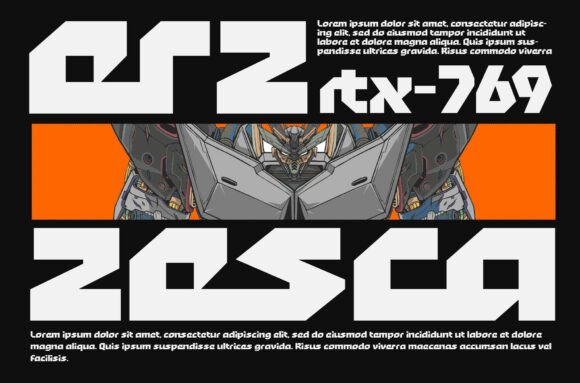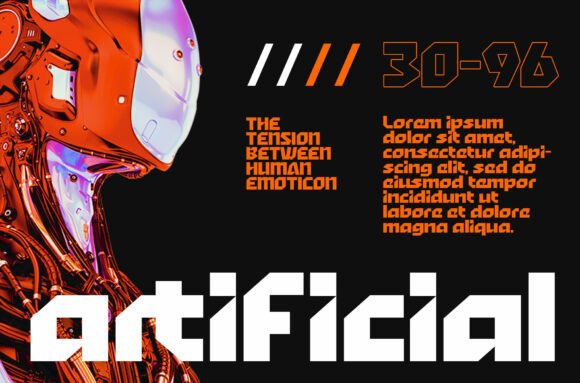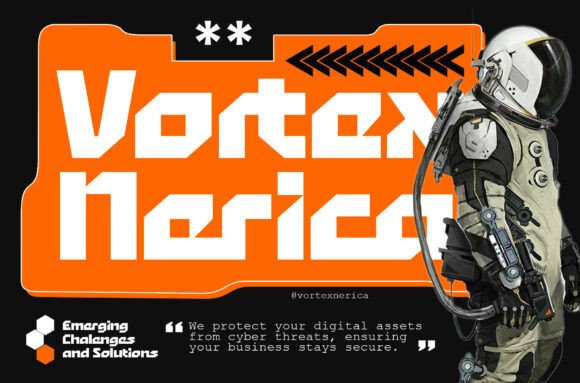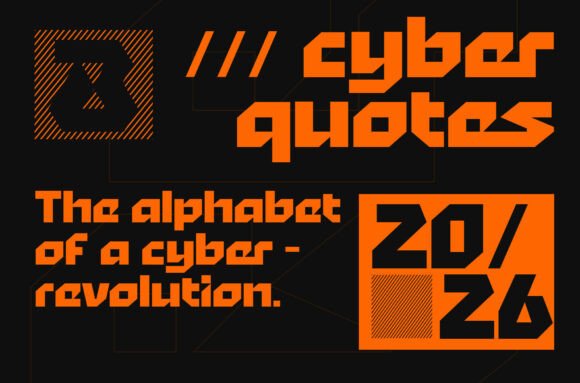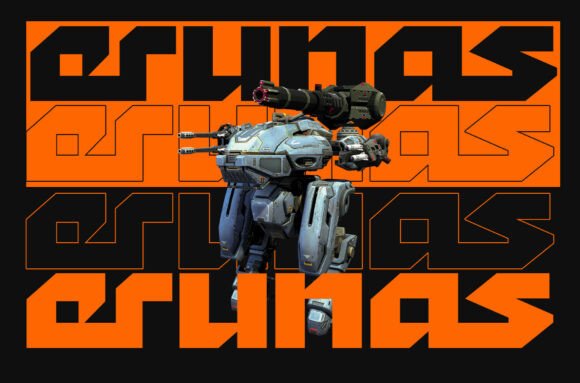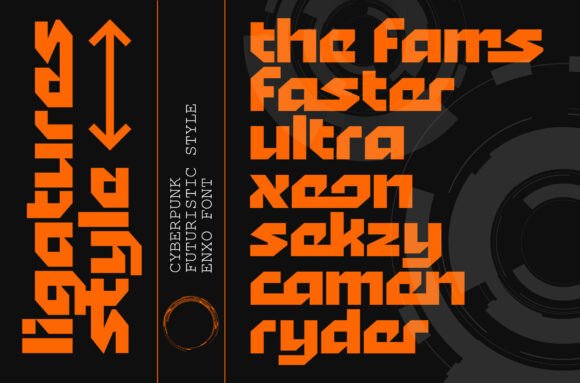
Introducing Exon: The Futuristic Display Font Revolutionizing Digital Design
I’ll never forget the design struggle that led me to discover Exon. I was working on a cyberpunk-themed project, and my client asked for a font that would transport their brand into a futuristic world. After hours of scouring font libraries, I stumbled upon Exon – a game-changing display font that embodies the perfect blend of high-tech aesthetic and bold style.
The Birth of Exon
Exon is the brainchild of geometric precision, digitally sharpened edges, and ultra-modern flair. This font is specifically curated for sci-fi endeavors, cyberpunk themes, and gaming enterprises. Its creator aimed to craft a typeface that would seamlessly merge the digital and physical worlds, and I must say, they’ve succeeded.
What Makes Exon Special?
Exon’s typeface characteristics speak volumes through its clean geometric letterforms that capture attention without screaming for it. The font boasts a harmonious symphony of uppercase and lowercase characters, numbers, punctuation, and symbols. Here are some key features that make Exon stand out:
- ✨ Geometric precision and digitally sharpened edges
- ✅ Ultra-modern flair perfect for sci-fi and cyberpunk themes
- ⚡️ Clean and bold letterforms that command attention
- 💻 Perfect for logotypes, captivating headlines, and edgy poster designs
Honest Review: The Good and the Quirks
- ✨ Exon’s versatility – it works wonders in UI/UX, web design, and even movie captions
- ✅ The font’s readability, even at smaller sizes
- ⚡️ Exon’s OpenType features, which allow for creative experimentation
- 🤔 Some characters may appear too bold or overpowering in certain contexts
- ⚠️ Limited availability of stylistic alternates, which might limit creative freedom
Exon’s creator drew inspiration from the futuristic landscapes of sci-fi movies and video games. They aimed to craft a font that would evoke a sense of innovation and technological advancement. Through Exon, designers can tap into this visionary world and bring their most ambitious projects to life.
Q: What is Exon best suited for?
A: Exon is perfect for sci-fi endeavors, cyberpunk themes, gaming enterprises, and technology-centered designs.
Q: Is Exon available in multiple weights?
A: Exon is available in a range of weights, from regular to bold. However, the font’s versatility allows it to work well in various design contexts.